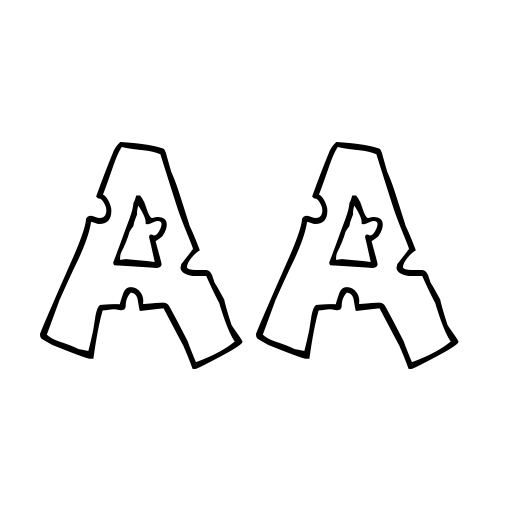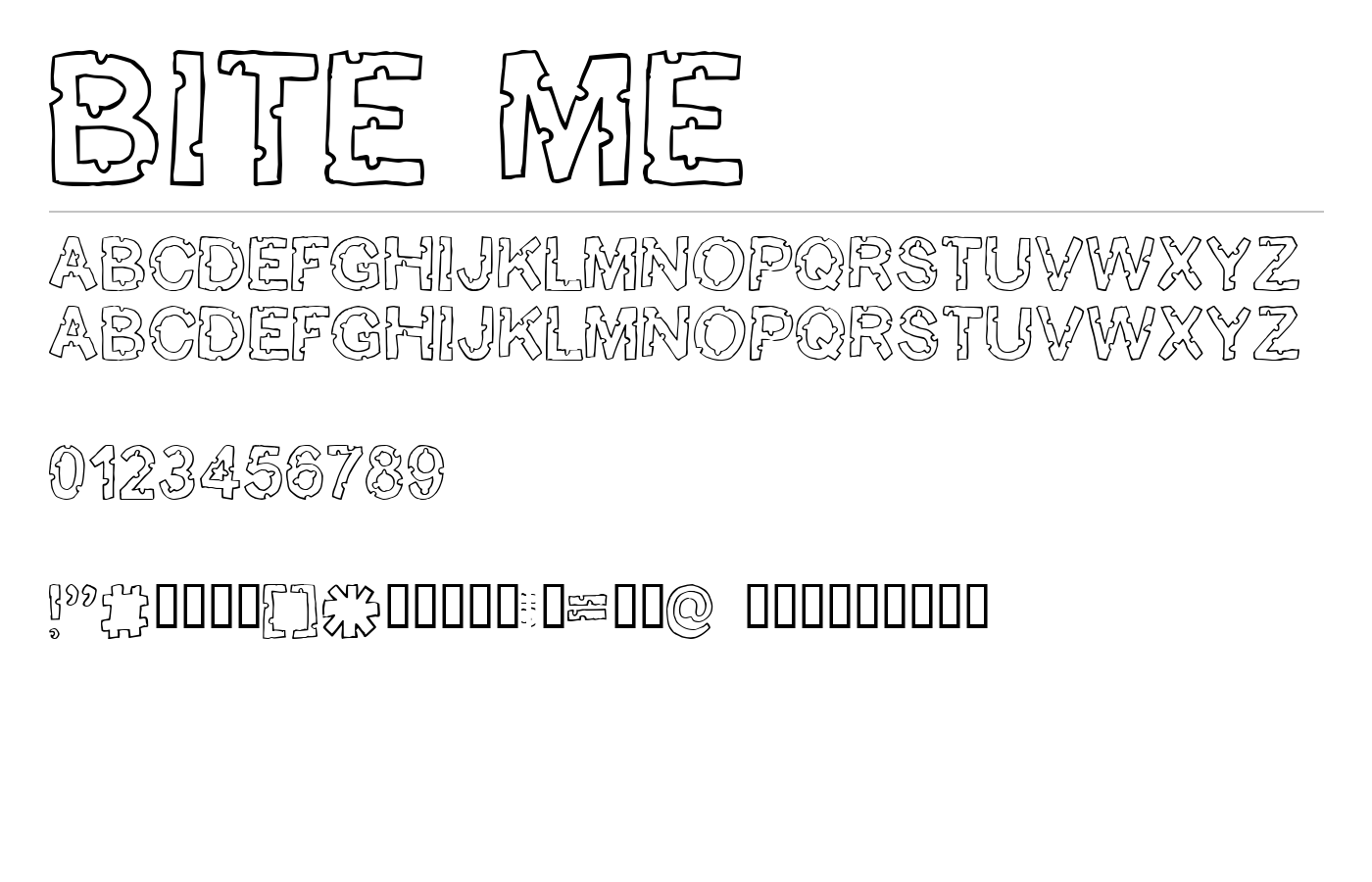
Bite Me is a playful, bold display font with irregular, bite-mark-like edges that give it a fun, quirky personality. Its chunky letterforms and outlined style make it perfect for eye-catching headlines, posters, or designs aimed at a youthful or casual audience. This font works well for projects needing a creative, informal feel with a sense of humor or whimsy.
Bite me Font
About Bite me Font